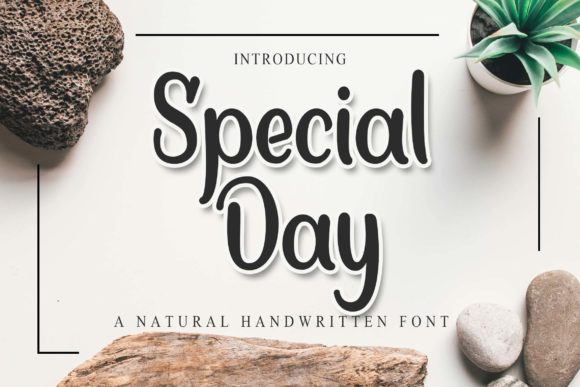
Embrace the festive spirit with Special Day Font, the perfect font to capture the magic of Christmas. This modern display font, meticulously crafted by Numa, combines readability, intelligence, and style in every character.
Immerse yourself in a world of smooth curves and elegant lines, making your Christmas letters come alive with joy and warmth. Special Day Font is an enchanting choice for fashion branding, transforming your designs into captivating expressions of holiday cheer.
With its versatility, Special Day Font effortlessly complements editorial designs, adding a touch of sophistication to your projects. You'll love the results, whether you're creating Christmas cards, festive posters, or enchanting social media graphics.